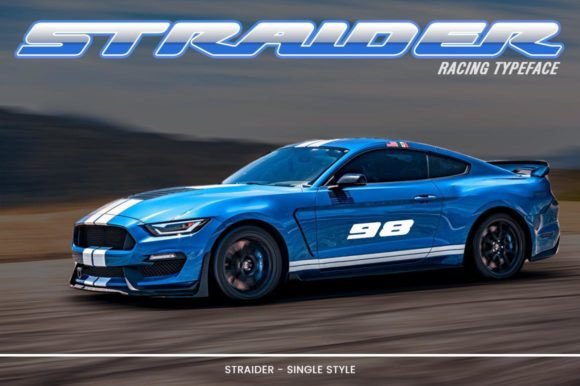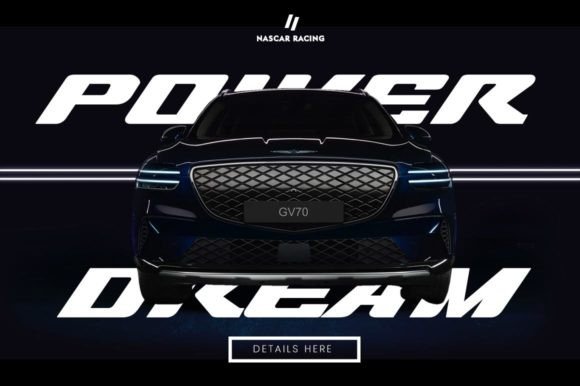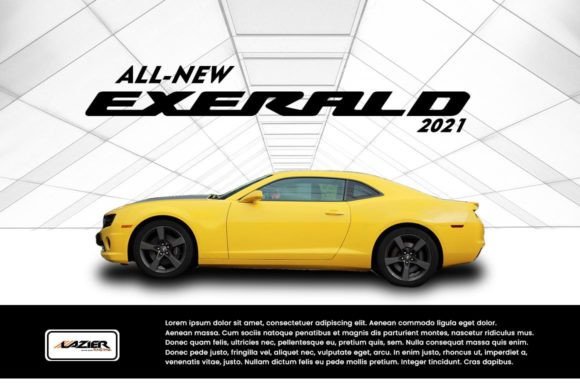
Straider Font: A Bold Display Font for Automotive Logos & Posters
About the Straider Font
Crafted with precision, the Straider Font is ready to bring your ideas to life. Specialized for the “speed typeface” and “adrenaline seeker” soul. A nitro boost for your visual needs. Please welcome, STRAIDER. The racing typeface.
Inspired by the mid-era of vintage and modern automotive visual branding. This bold and strong display font was built with a total aim to speed cars, vehicles, and automotive vibes. Will be a perfect match for automotive events, branding, logo, cars and motorcycle posters, advertising, or anytime you want some more “speed” in your visual project.